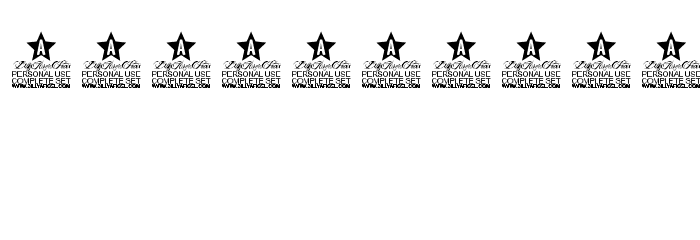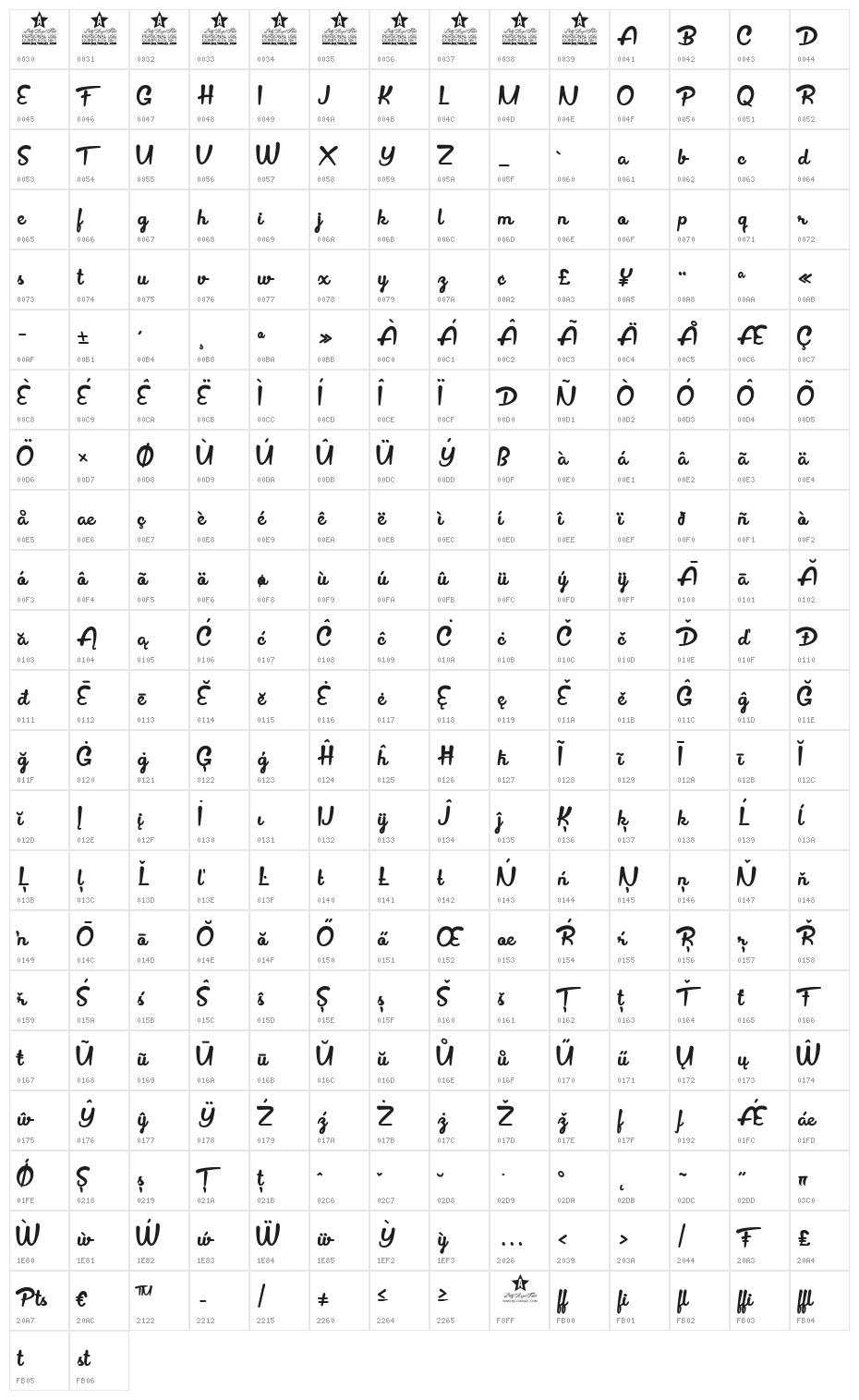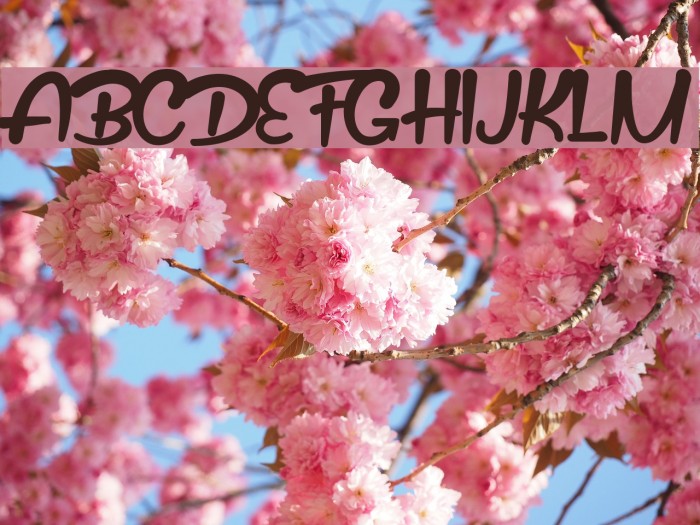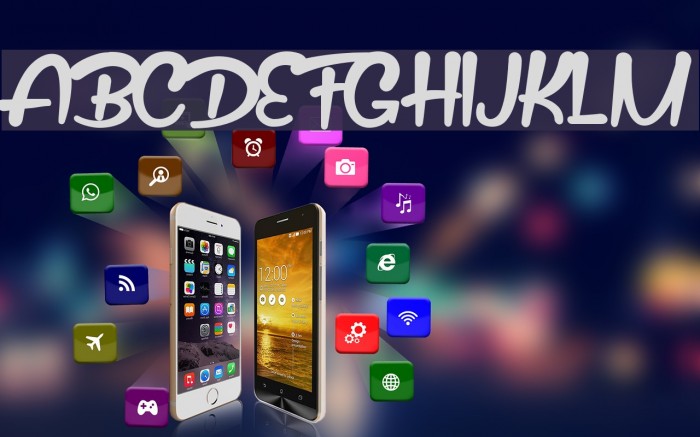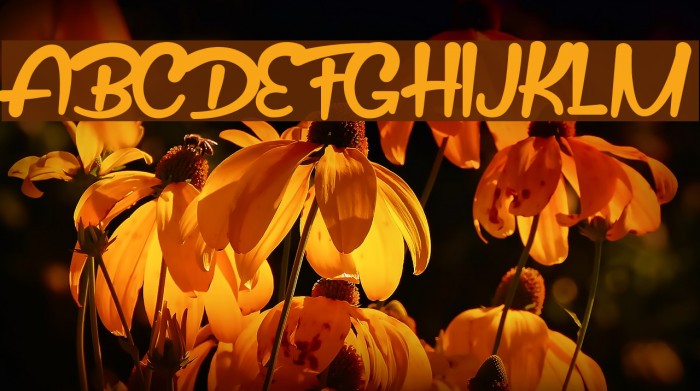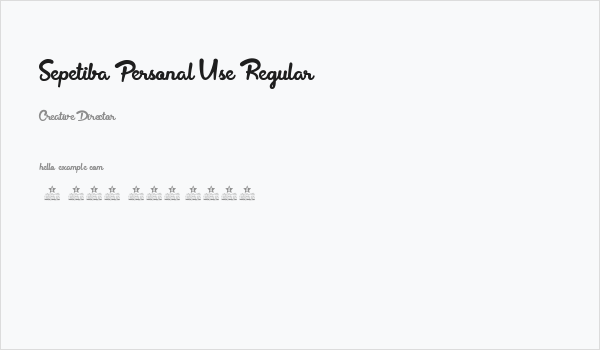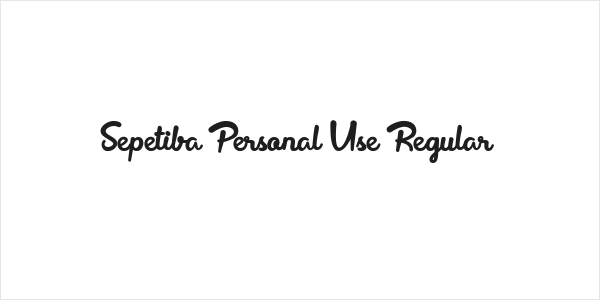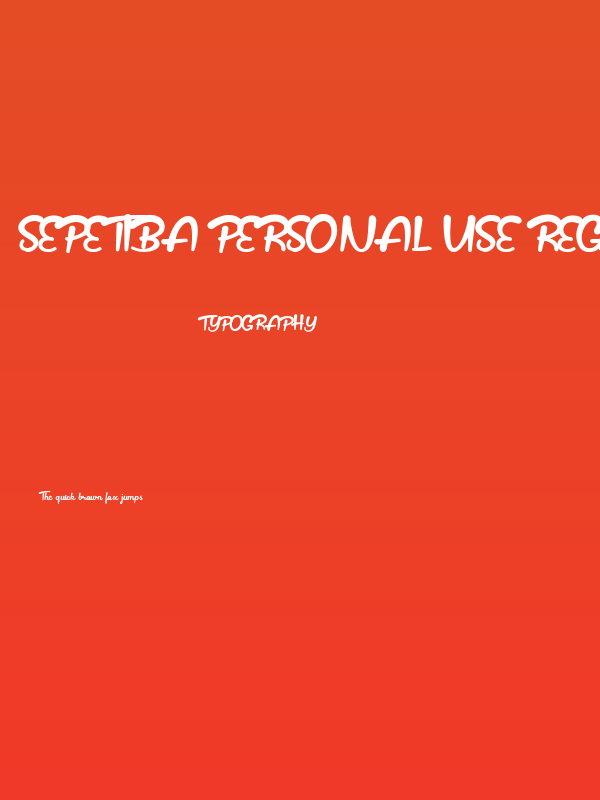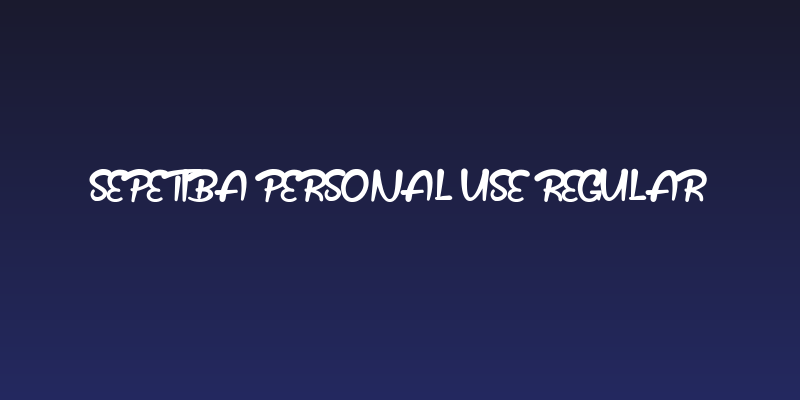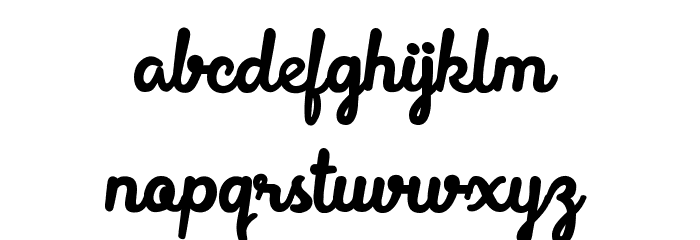
Sepetiba Personal Use Regular Font
Sepetiba Personal Use Regular Description
This font features a bold and flowing script style, characterized by its smooth, connected strokes and elegant curves. The uppercase letters are particularly striking, with a dynamic and slightly exaggerated flair that adds a sense of movement and sophistication. The lowercase letters maintain a consistent flow, enhancing readability while preserving the artistic quality of the design. The numbers and special characters are crafted with the same attention to detail, ensuring a cohesive look across all elements. This font is ideal for projects that require a personal touch or a sense of elegance and creativity.